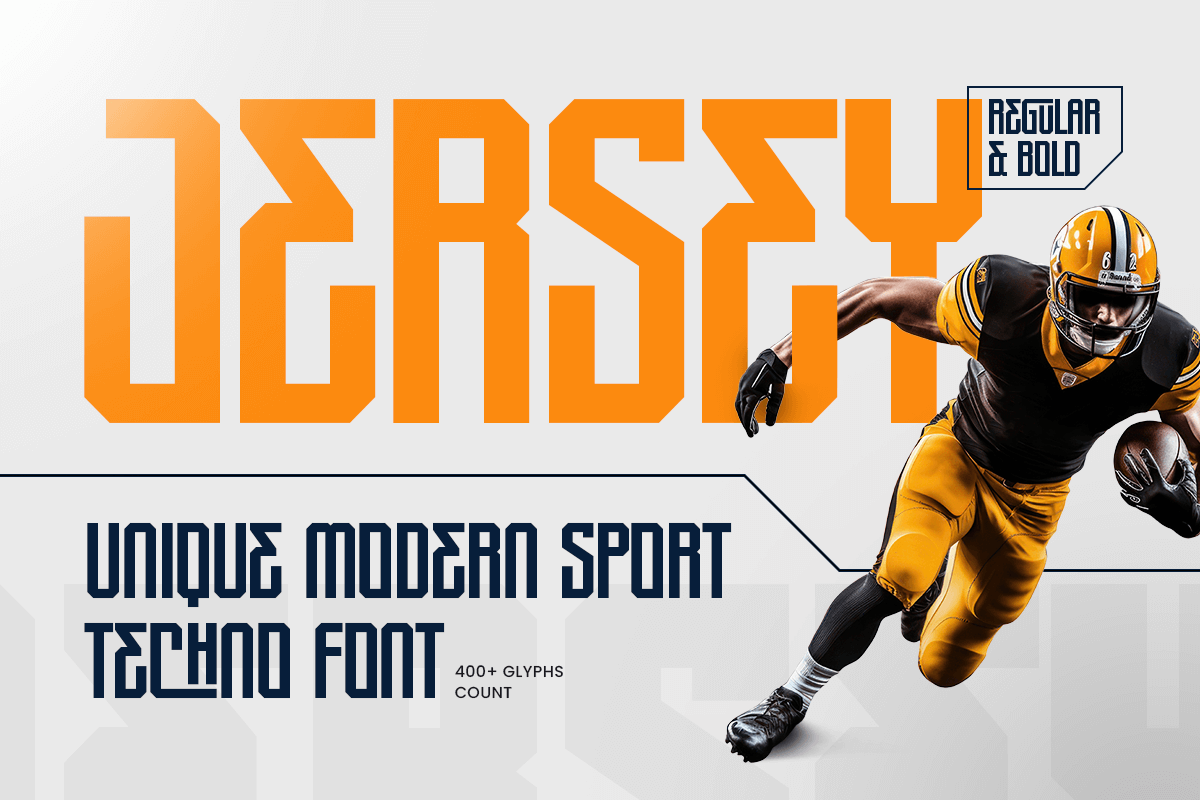
Monsta
-Modern Sport Techno Font
Monsta - Modern Sport Techno Font
MONSTA is a unique modern sport techno font designed to deliver speed, strength, and futuristic athletic energy. With sharp angles and a confident techno structure, this typeface creates a powerful sports identity that feels modern, competitive, and built for impact.
Made for high-performance visuals, MONSTA works perfectly across team logos, jersey lettering, tournament graphics, match posters, scoreboard-style headlines, social media promos, and esports branding. Its bold presence keeps typography readable while amplifying intensity in both digital and print formats.
Whether you’re creating for football, basketball, MMA, racing, fitness, or esports teams, MONSTA provides a modern techno edge that makes every name and headline look champion-ready.
Inspiration Behind MONSTA
MONSTA is inspired by modern sports branding, stadium typography, and futuristic techno aesthetics. Built to support athletic identity systems, it’s ideal for logo numbers and names, team logos, event campaigns, and competitive esports visuals. The font is designed to perform across logo, posters, signage, packaging, digital banners, and social media—anywhere bold speed-driven typography is essential.
MONSTA Font Features
• Sport techno letterforms with energetic character
• Ready with regular and bold weight inside font file
• Optimized for names, team logos, and headline design
• Strong readability for large display and event graphics
• OpenType features for polished, flexible sports typography
• logo names, numbers, and team apparel design
• Sports logos, badges, and athletic brand identities
• Tournament posters, match graphics, and event branding
• Esports teams, gaming squads, and streamer visuals
• Social media promos, banners, and high-energy ads
Make your team identity hit harder with MONSTA - crafted for modern sport techno impact and winning visuals. 🏟️⚡